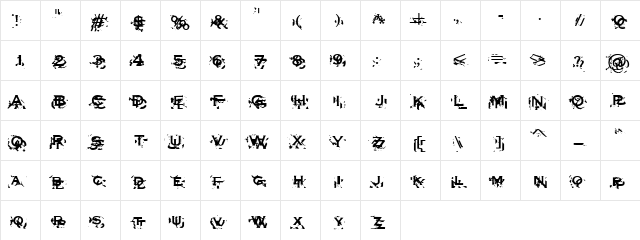
Crash Regular
Design Context for Crash Typeface
Crash is a composed and adaptable typeface that performs quietly and consistently across a wide range of design contexts.